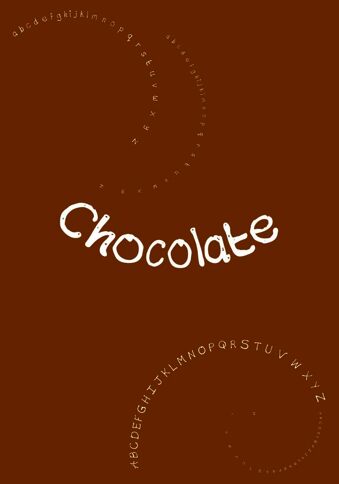
chocolate type bold spaced
Chocolate Type Bold Spaced is a free graffiti font with broad, loosely drawn letters and a lively street-marker character. Stroke widths shift abruptly, and rounded forms lean into sharper joins. Small cutout flecks give the dark lettering a scuffed, ink-skipped surface.
Its hand-rendered look can create a playful tag for snack packaging, youth events, or music posters. On merchandise, the irregular contours and speckled gaps let a name function as part of the artwork rather than as neutral labeling.
This typeface was created by hand using chocolate and is now a working typeface.